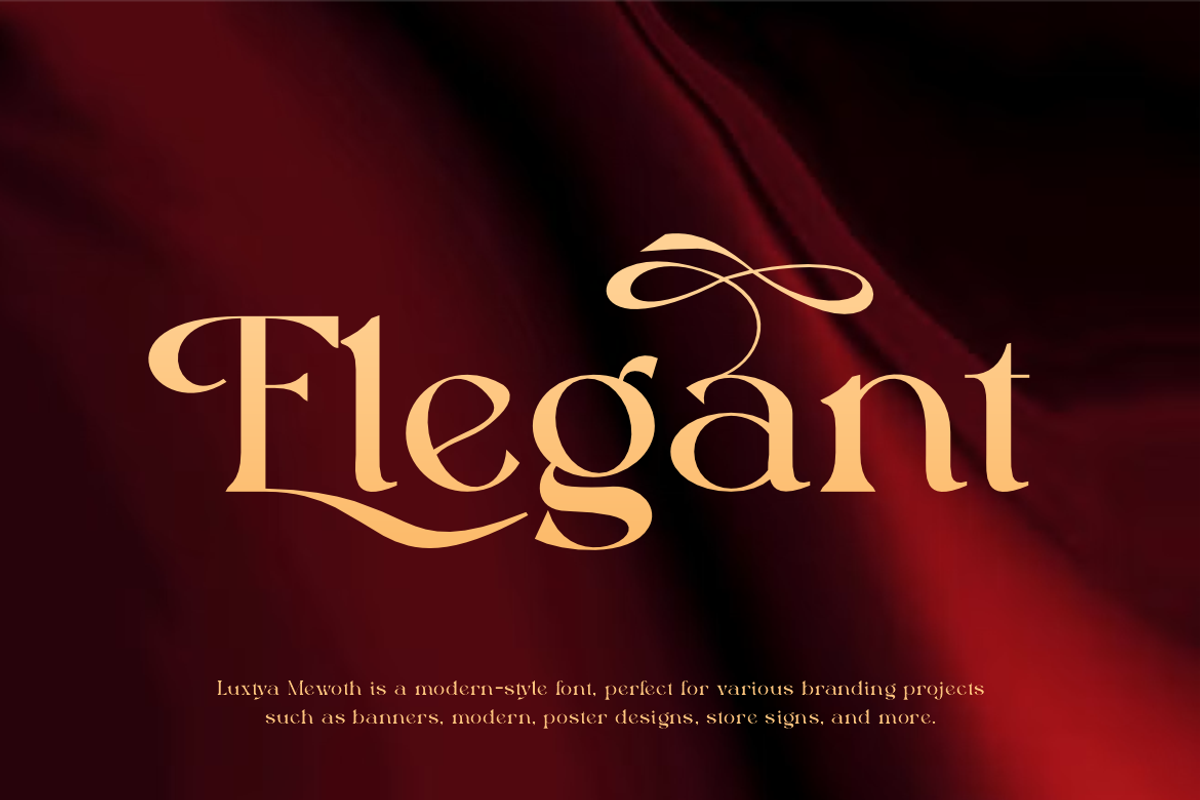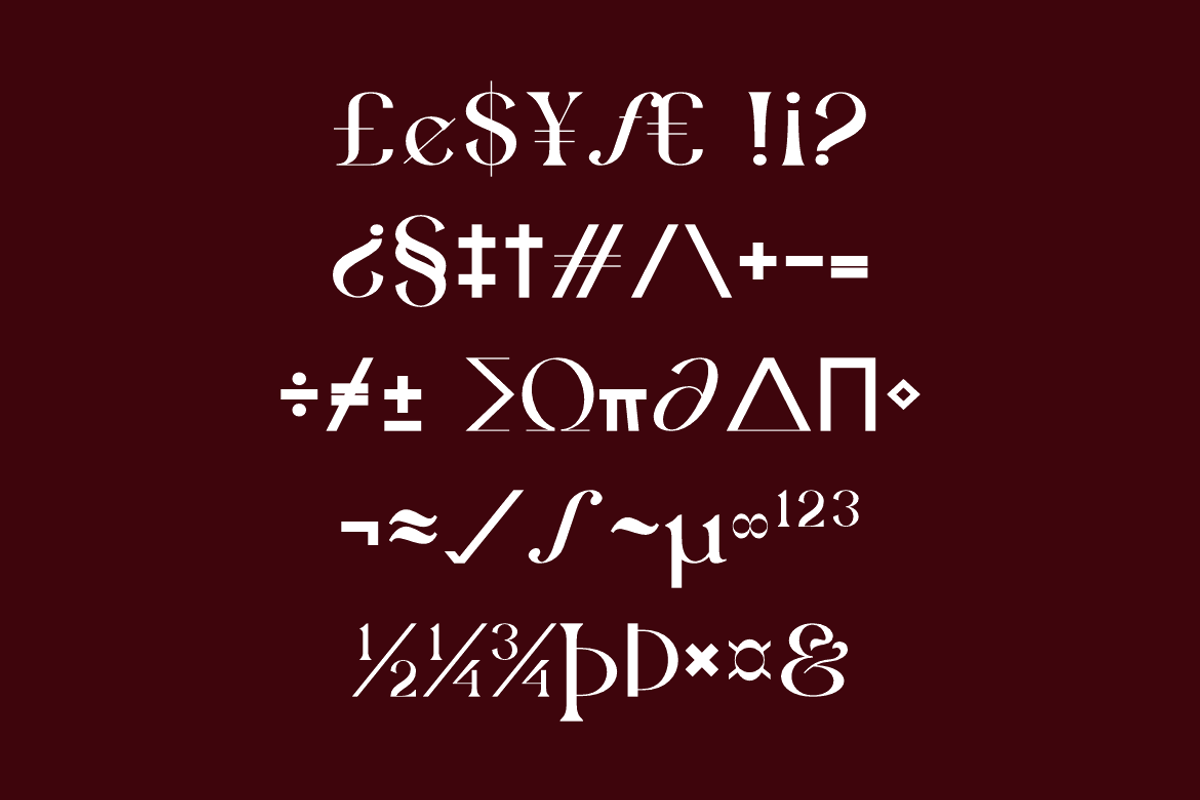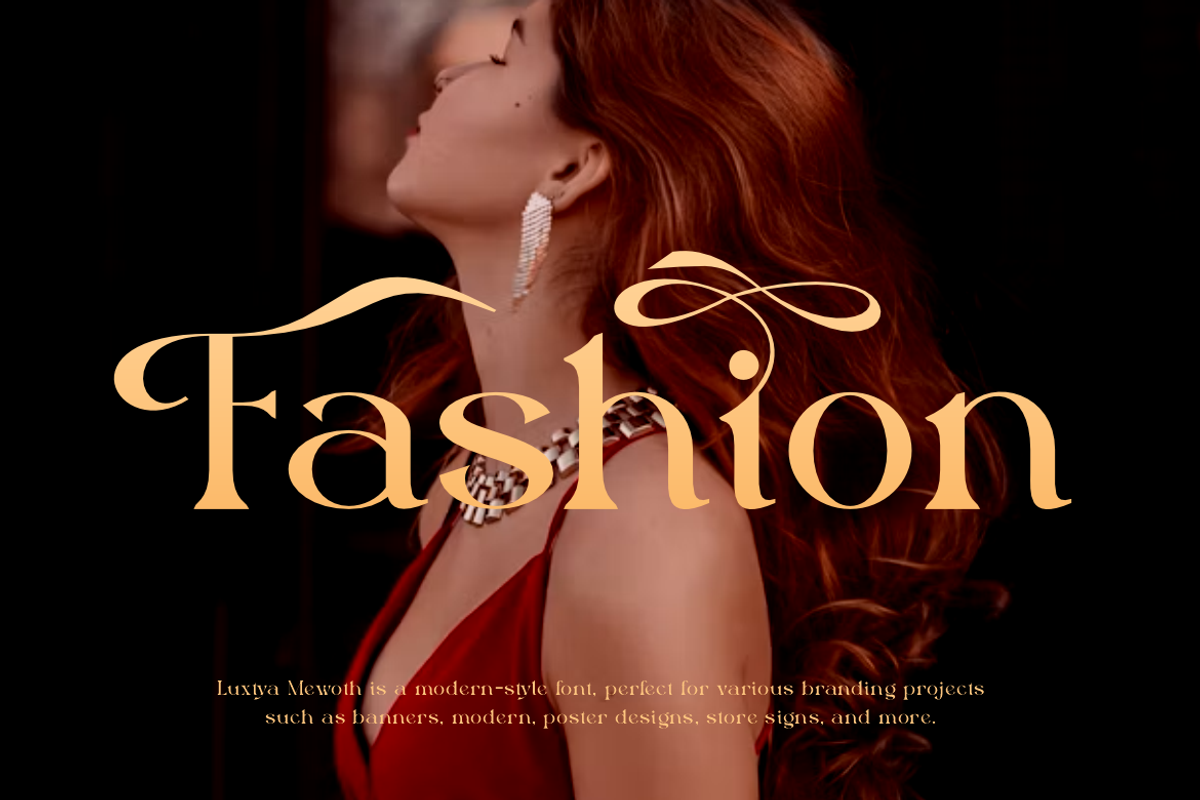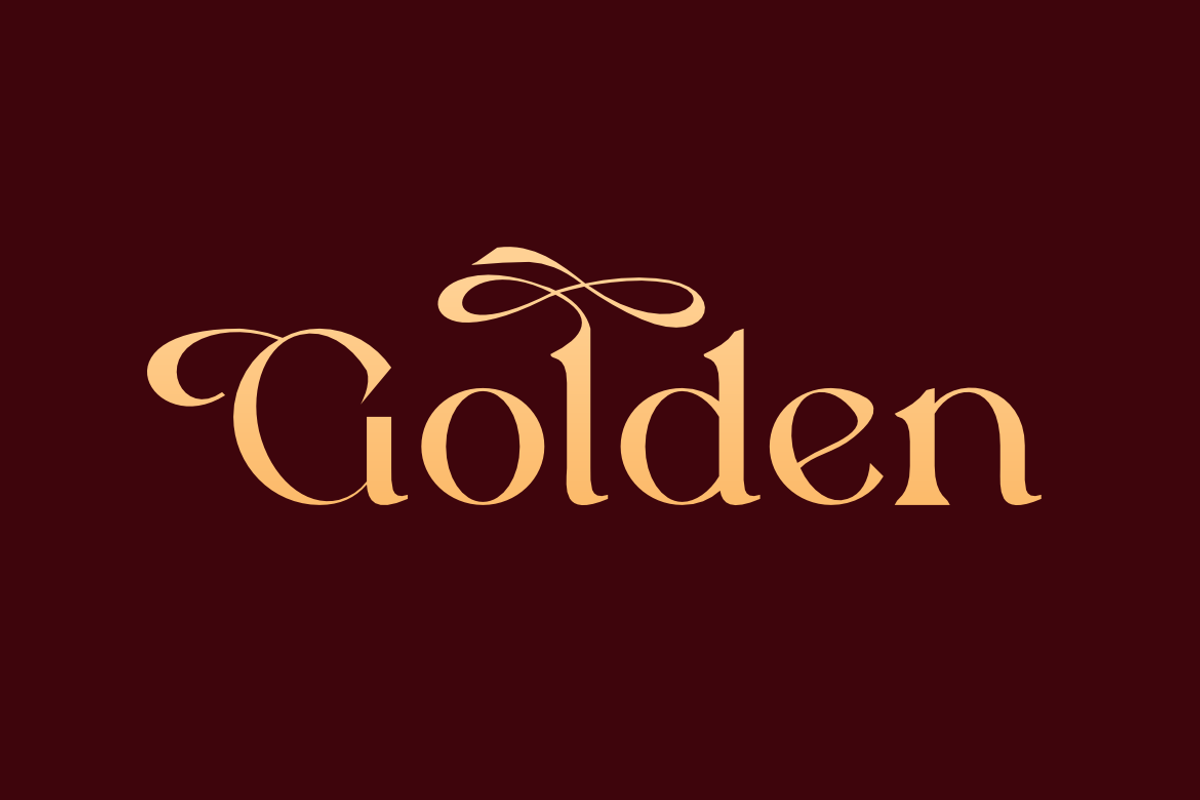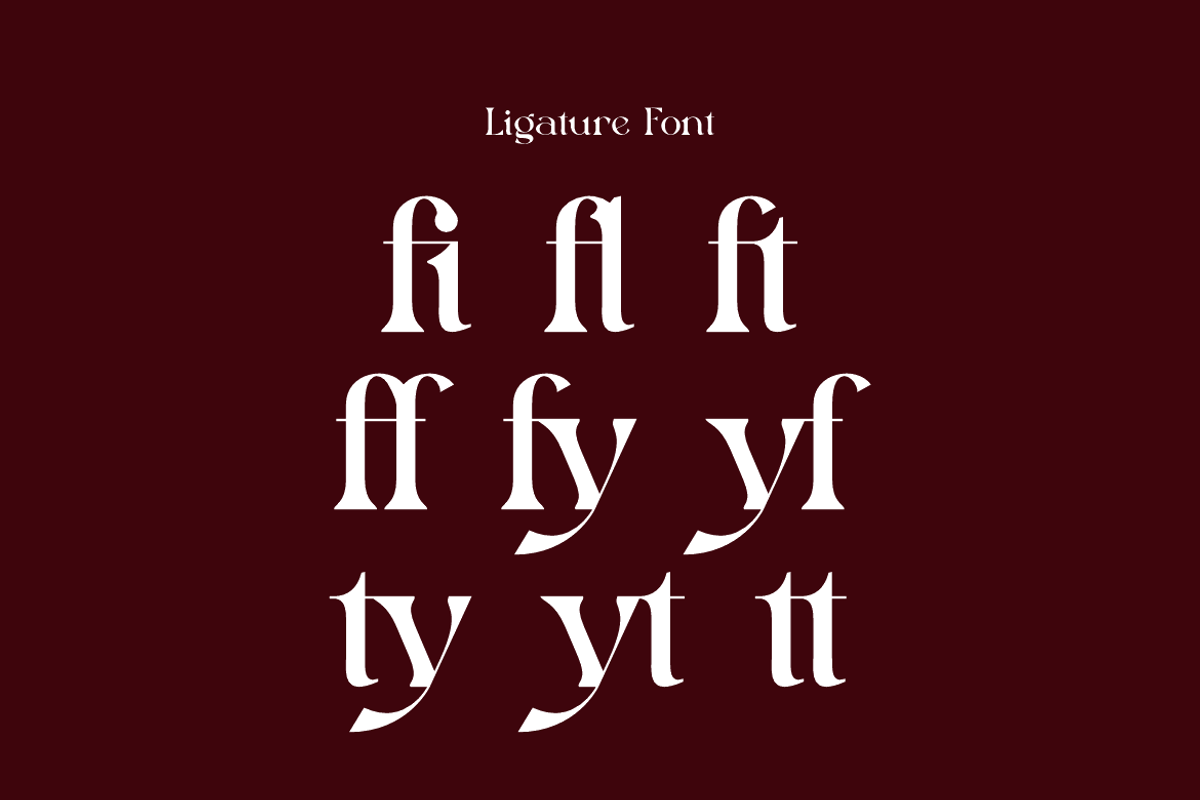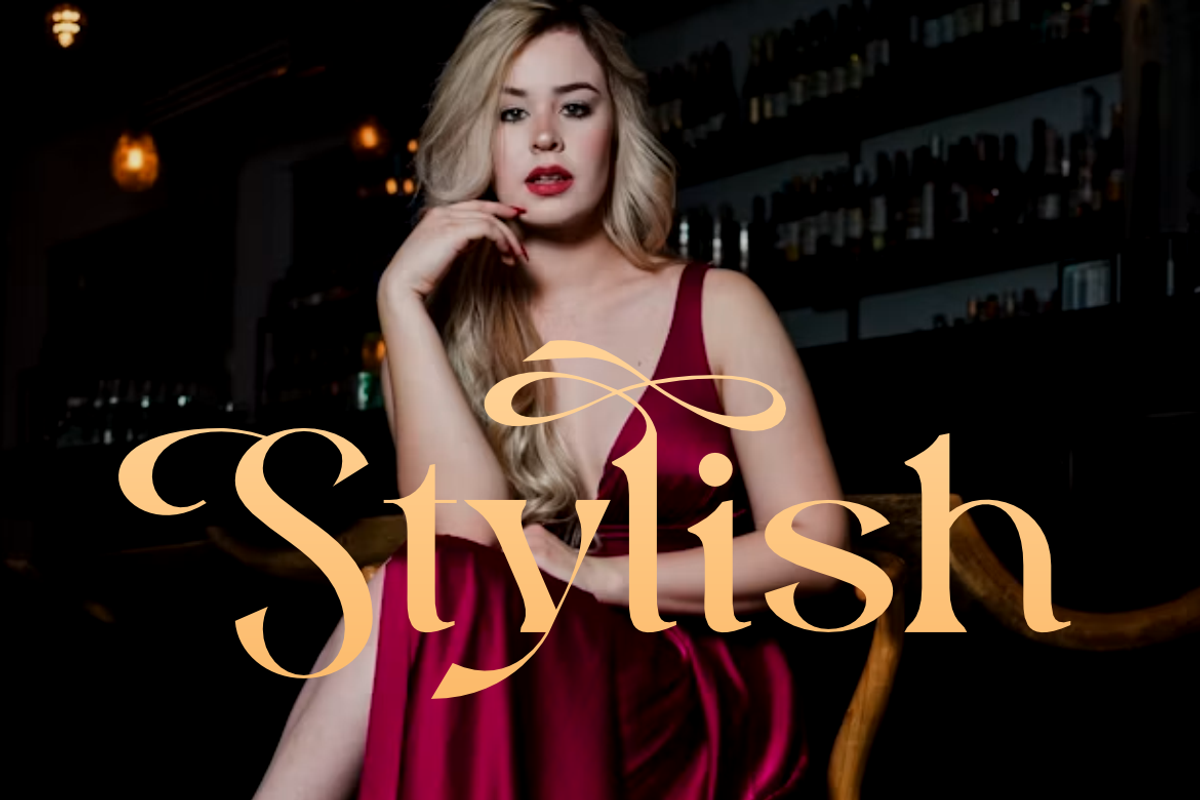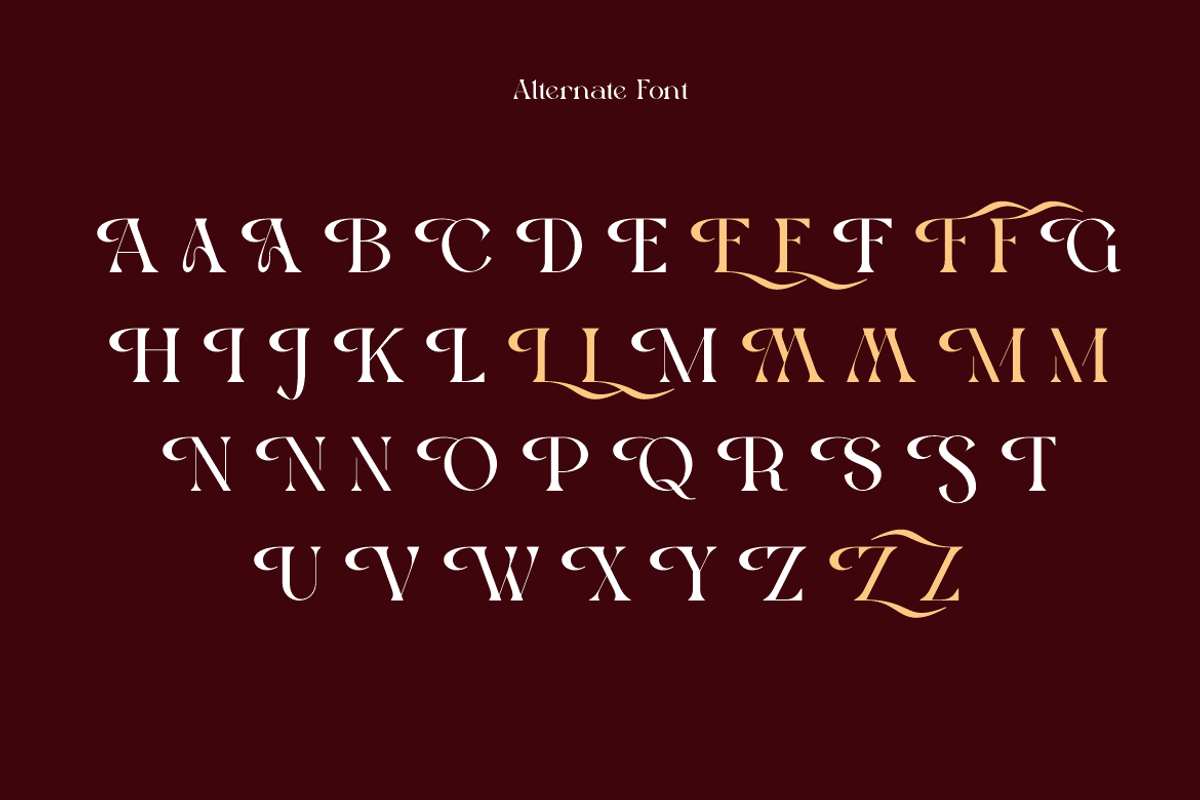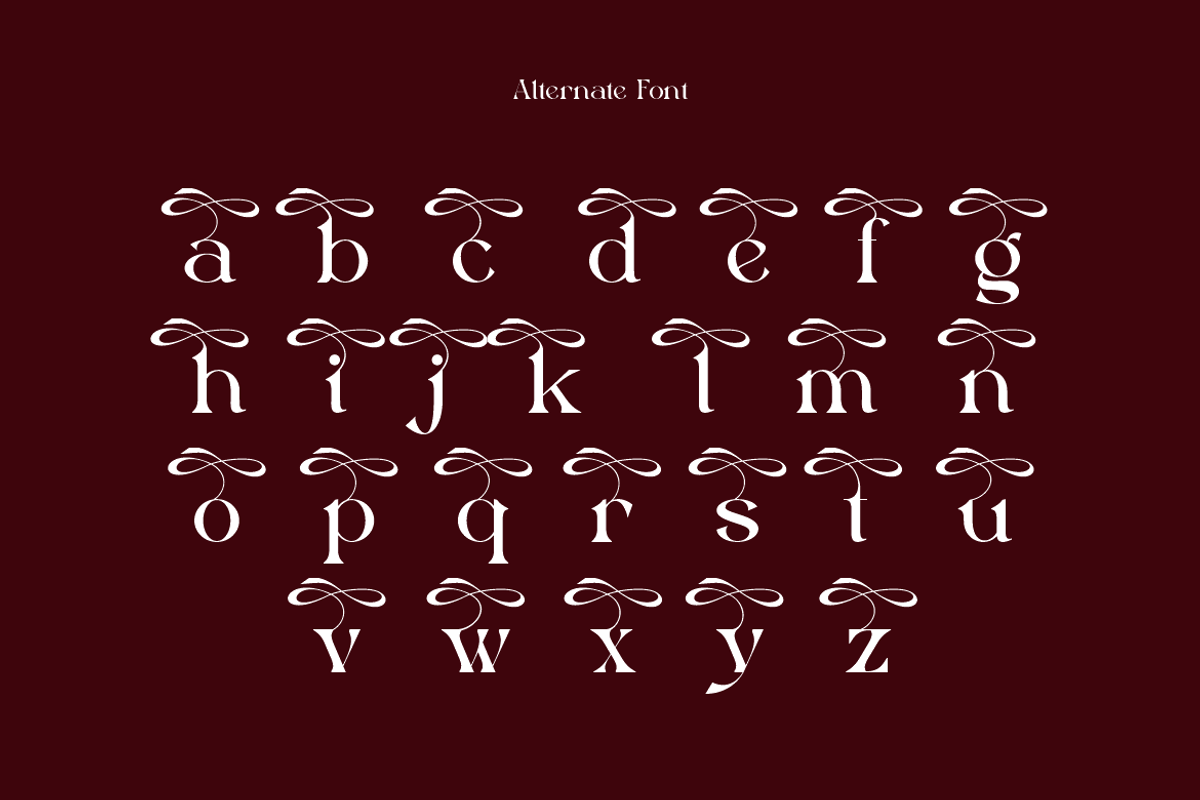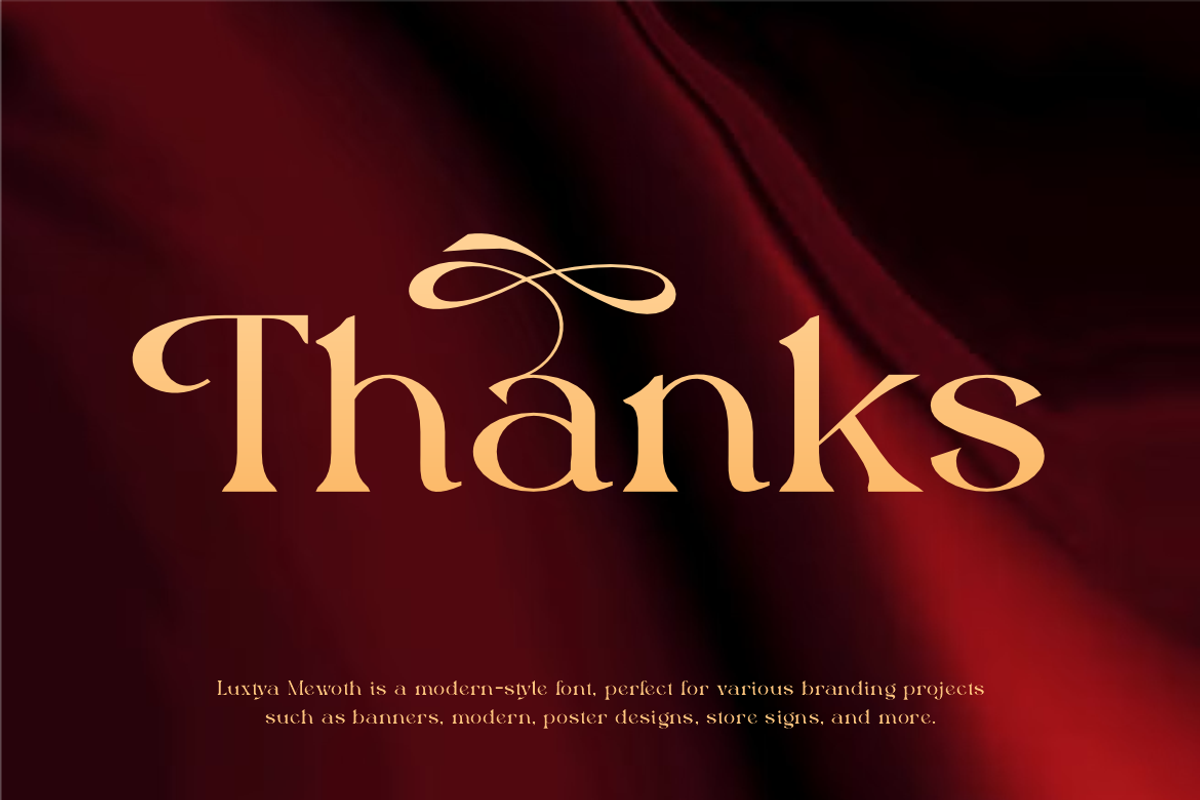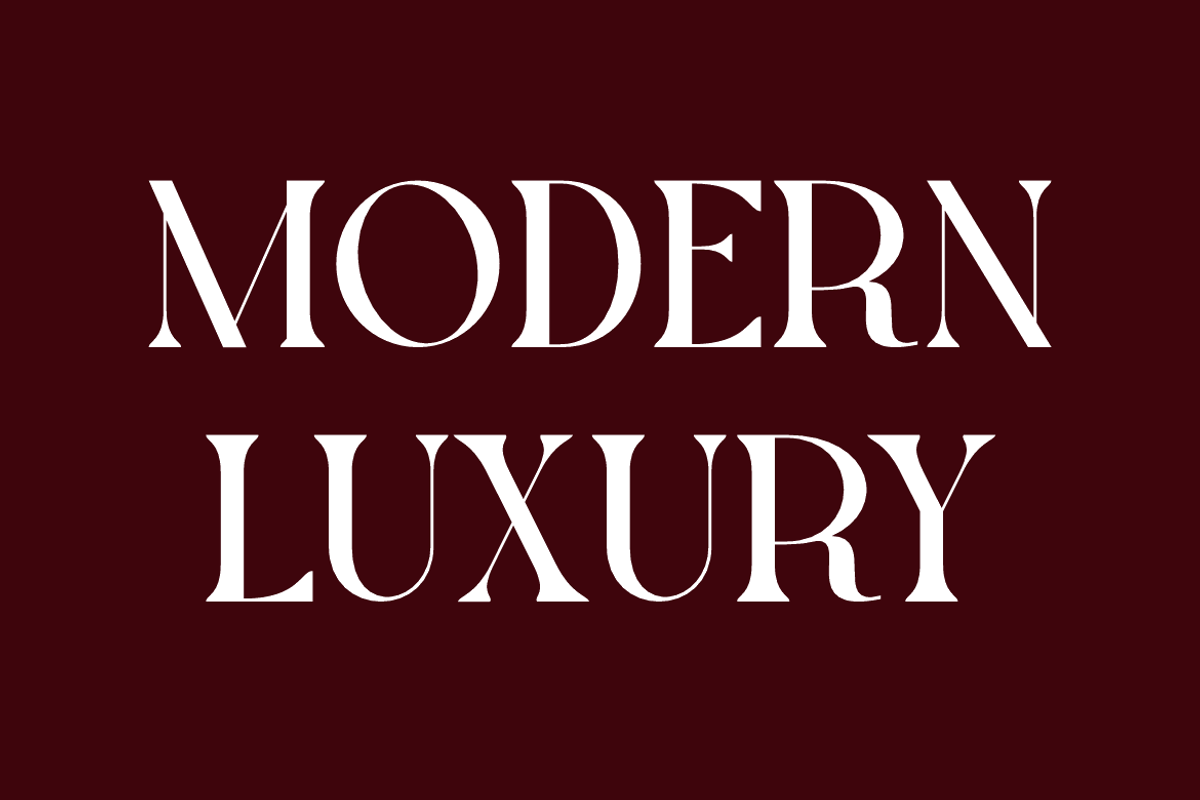
Luxtya Mewoth - Elegant Luxury Font
Luxtya Mewoth Font is a modern and authentic display typeface
that suits a variety of design needs. We offer a wide range of themes